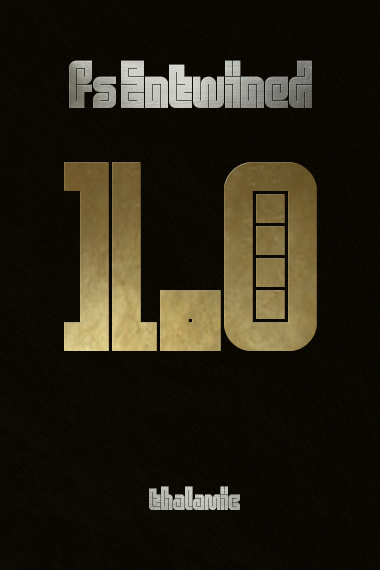
the short numerals seem all out of order but there is a logic to it. - for 1, _ (shift -) for 2, = for 3, + (shift =) for 4, [ for 5, { for 6, ] for 7, } for 8, \ for 9, | for 0.
Mayan-type alt. numerals at: * for 0, ( for 1, ) for 2, ; for 3, : for 4, ' for 5, " for 6, < for 7, > for 8, / for 9.
10/10. This looks amazing. Best font all week. Really love the shorter numerals.
Mayan-type alt. numerals:
Genius. This is in a league of its own. 10 out of 10.
very nice :)